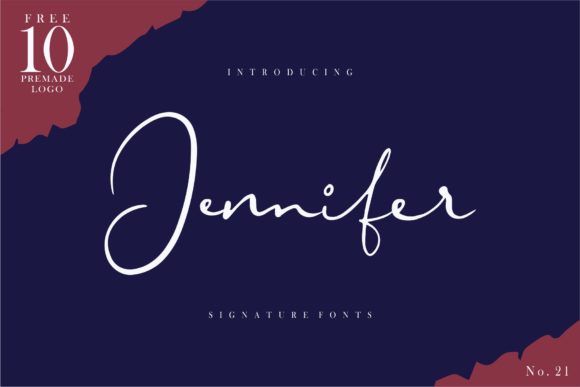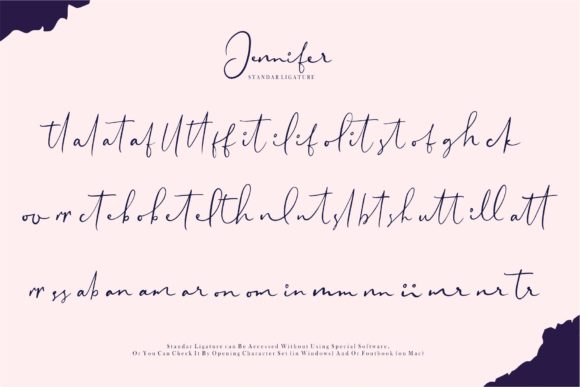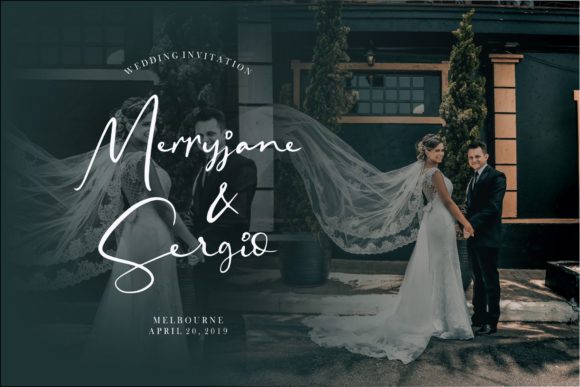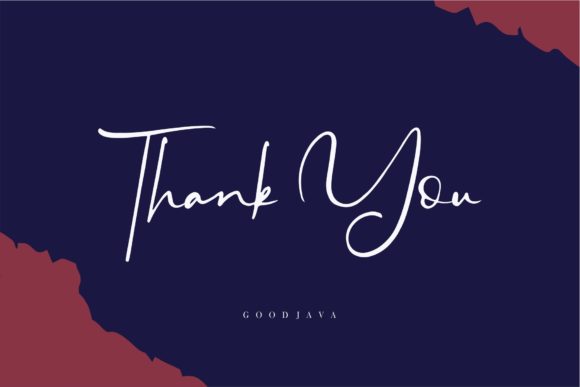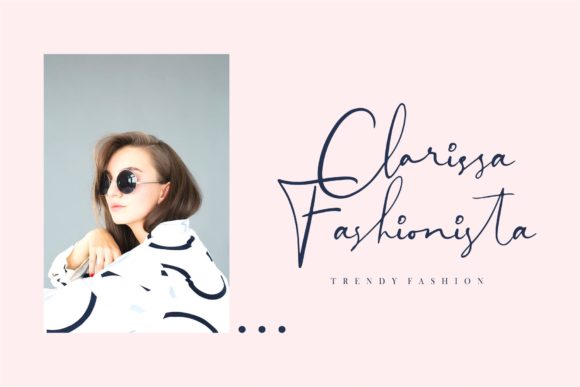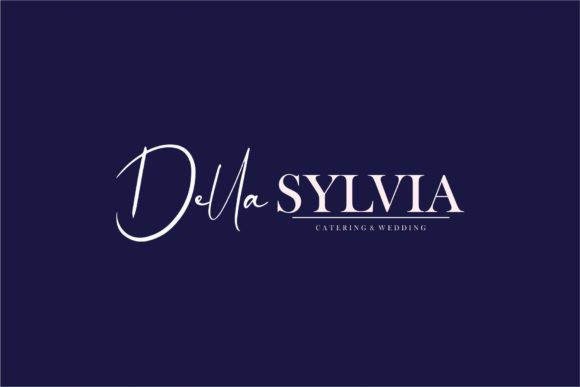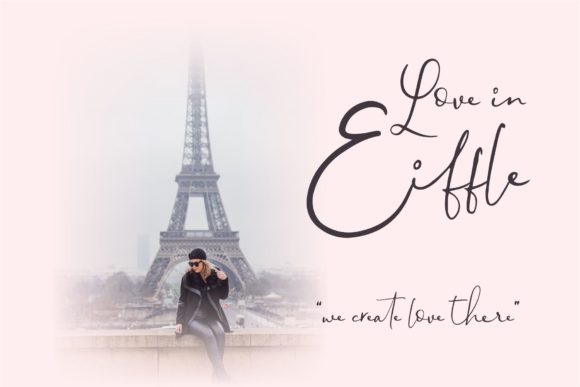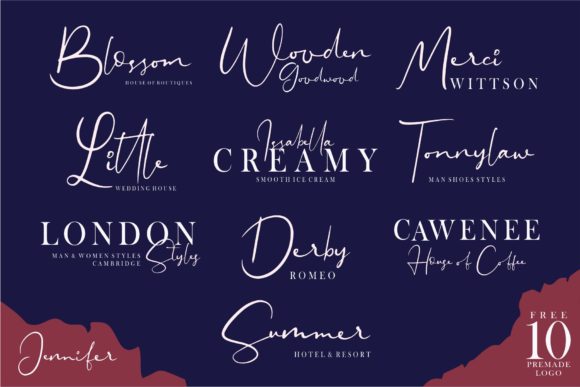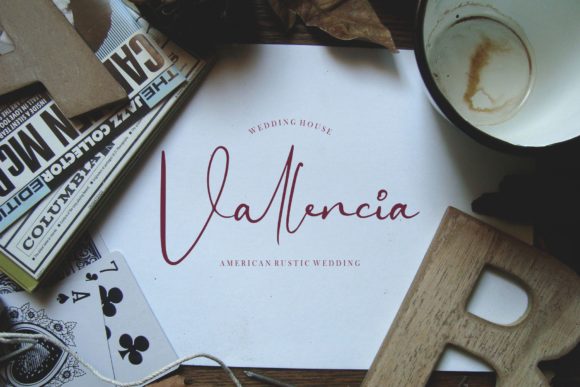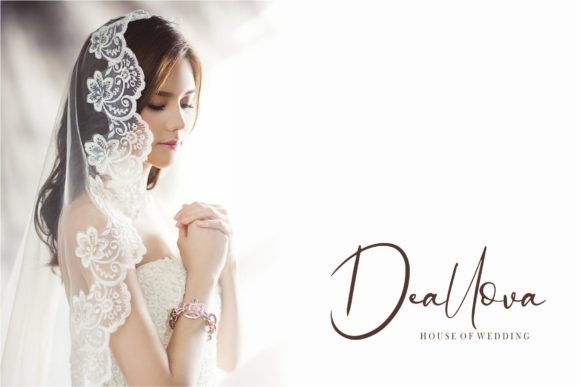
Jennifer Font
About Jennifer Font
Jennifer is a natural & modern handwritten font with an organic feel. It will update any design project with its contemporary and authentic charm.